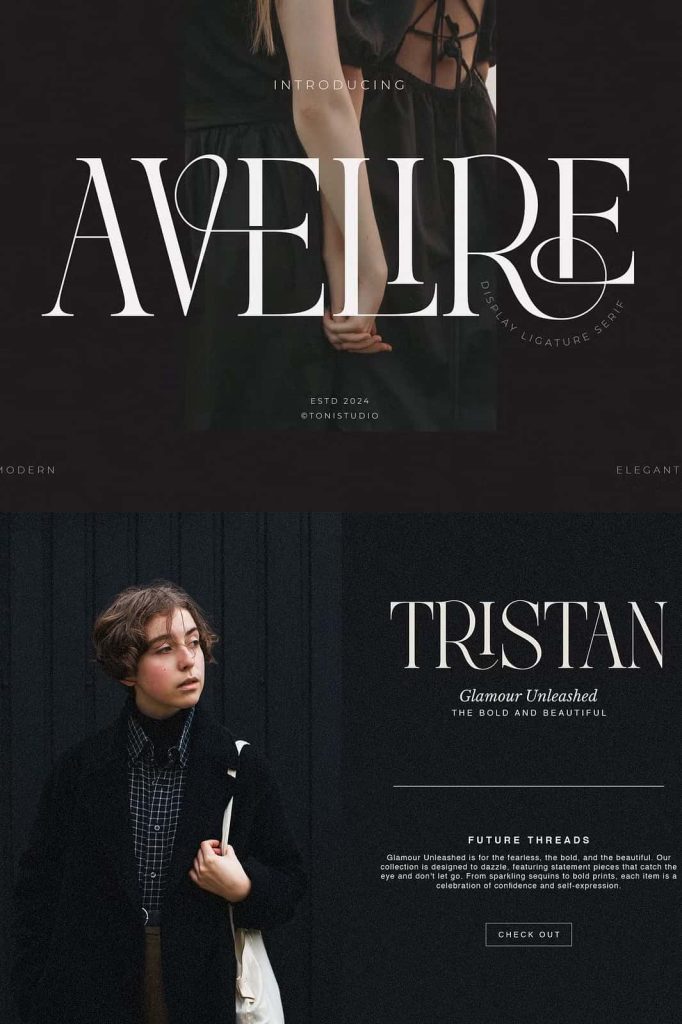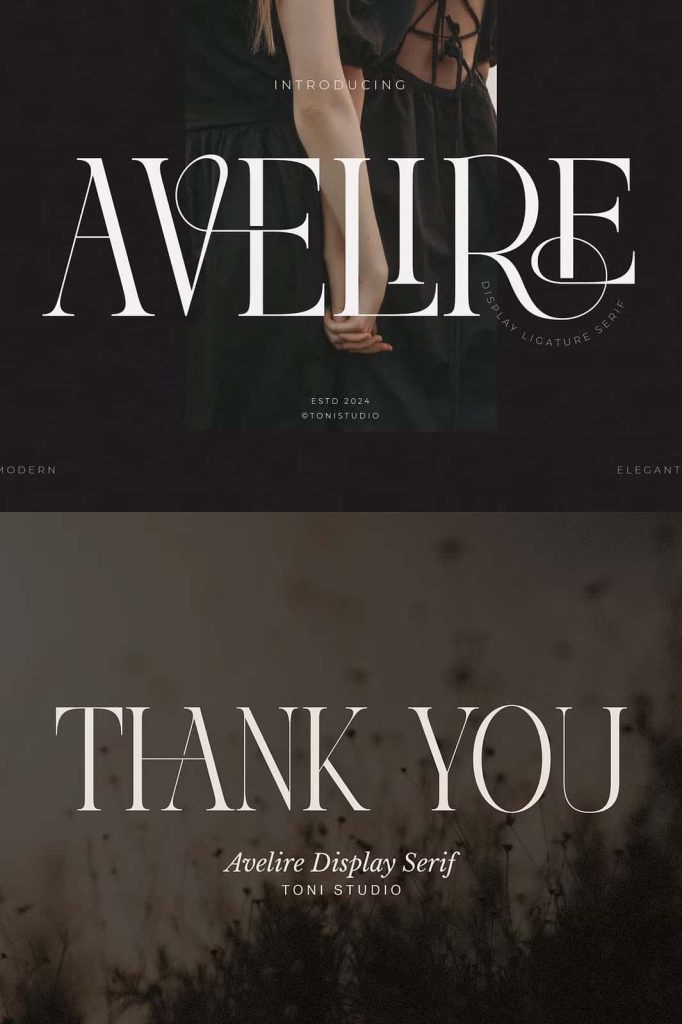
Avelire-modern ligatureleastedApril 28, 2025Fonts AVELIRE with Ligature styles perfect for branding, logos, invitations, masterheads and more. Download